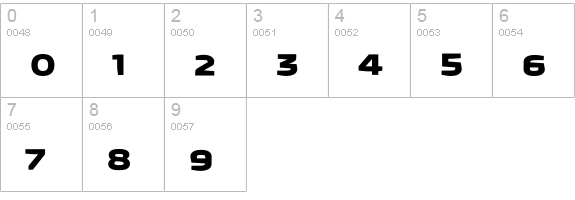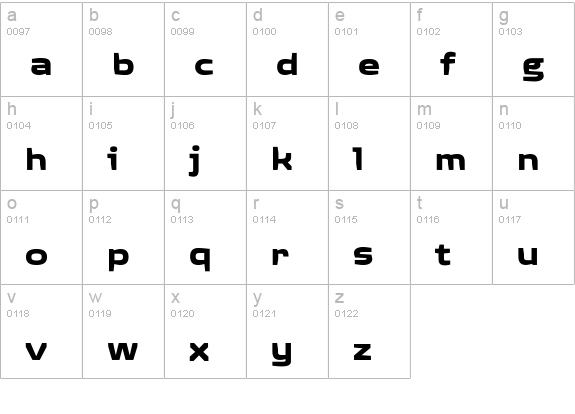
Quagmire-BoldExtended font is a captivating and versatile typeface that exudes confidence and boldness in every letterform. With its extended proportions, it adds an extra touch of elegance and uniqueness to any design project. This font's distinctive style is perfect for headlines, logos, and branding materials, as well as editorial layouts, posters, and advertising campaigns. Quagmire-BoldExtended font offers an expansive character set, including uppercase and lowercase letters, numbers, punctuation marks, and special symbols. Its strong and robust strokes create a commanding presence on the page, while the elongated letterforms provide a sense of fluidity and grace. What makes Quagmire-BoldExtended font even more appealing is that it is available for free download at FontsMarket.com. This means that designers, creatives, and typophiles can easily access and utilize this captivating font without any cost. Whether you are a professional graphic designer or a hobbyist looking to add a touch of sophistication to your personal projects, Quagmire-BoldExtended font is a valuable asset that will elevate your designs to new heights. So why wait? Discover the power and beauty of Quagmire-BoldExtended font today and bring your creative visions to life. Download it for free at FontsMarket.com and unlock a world of endless possibilities in typography.